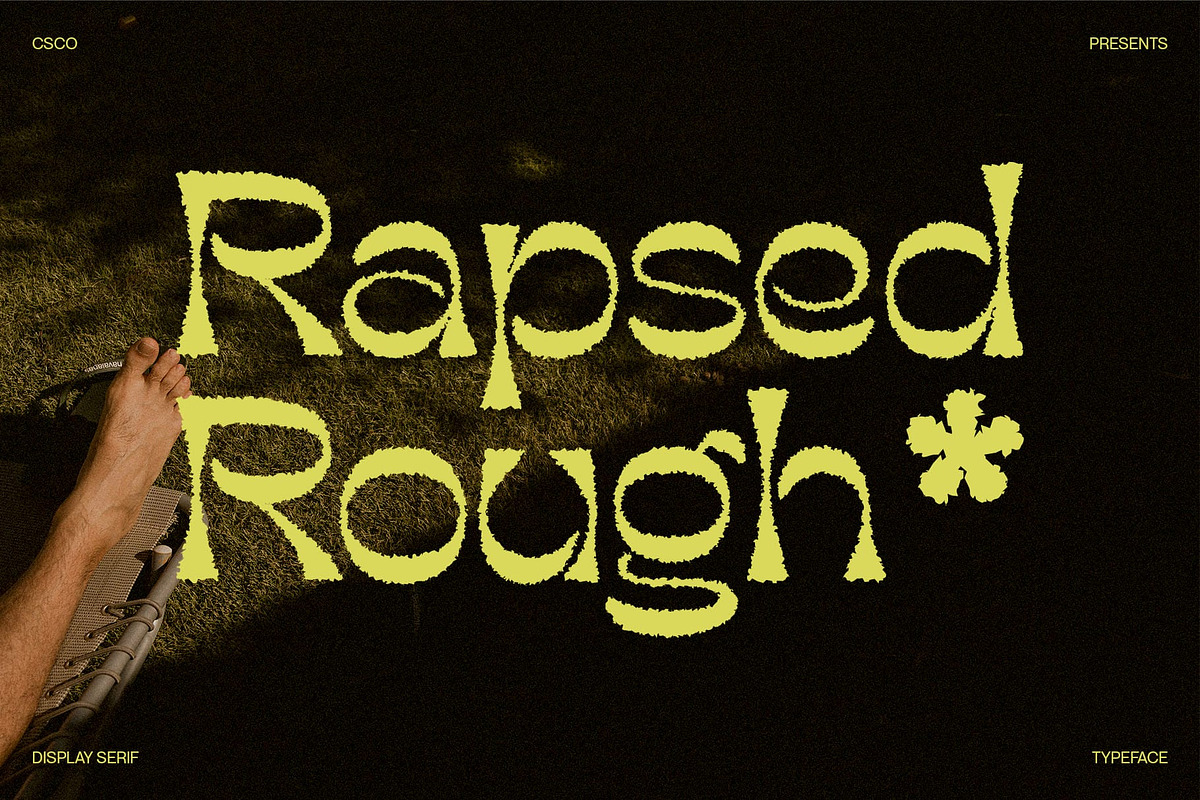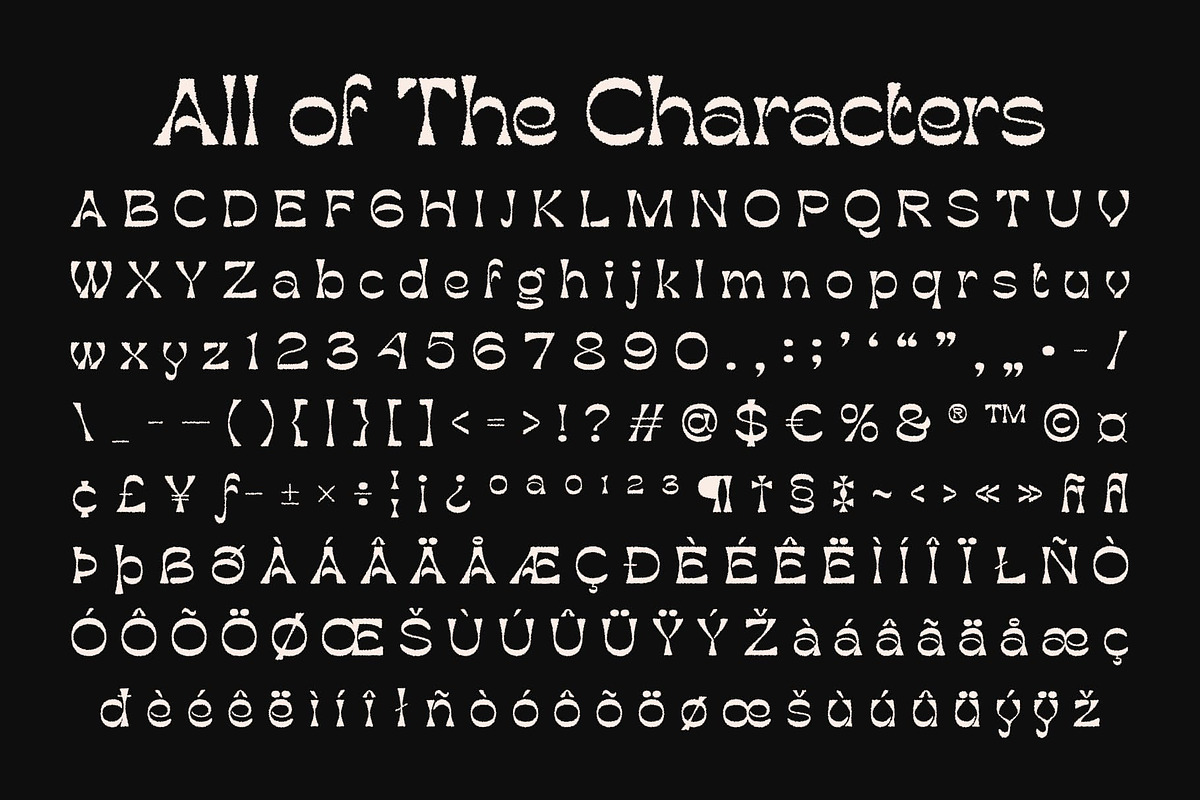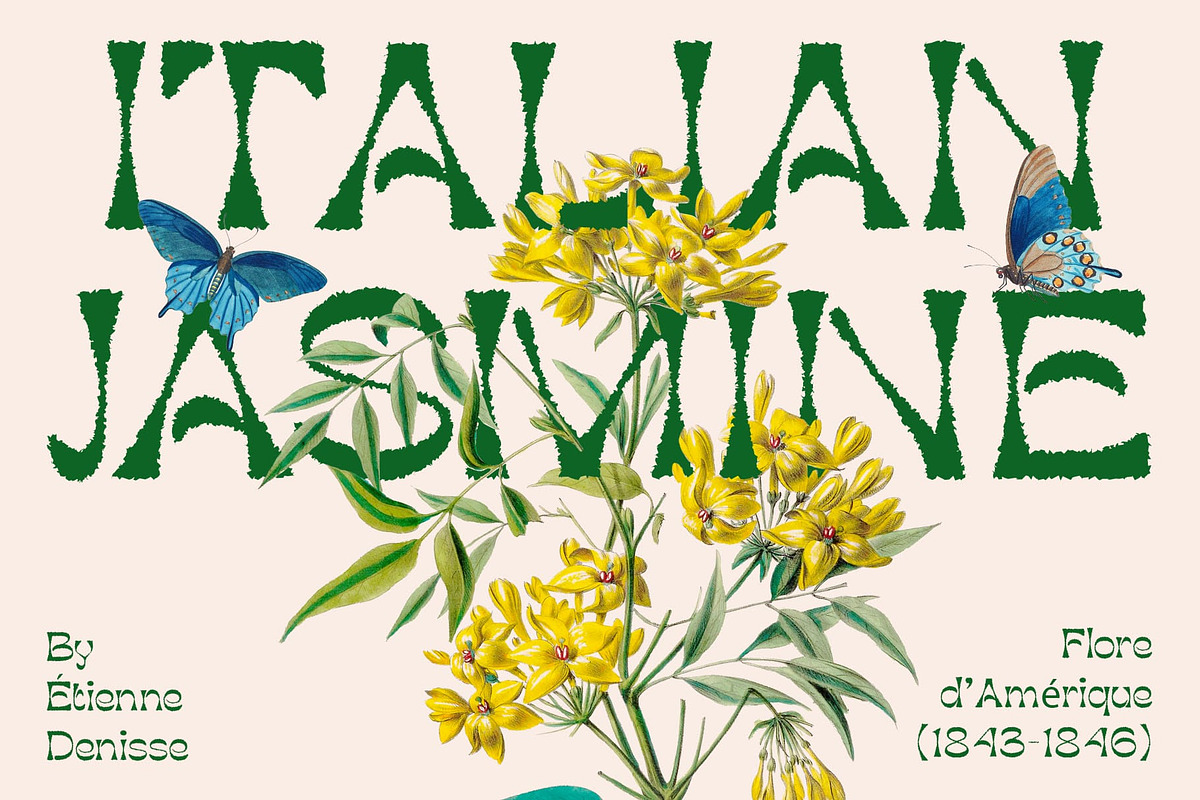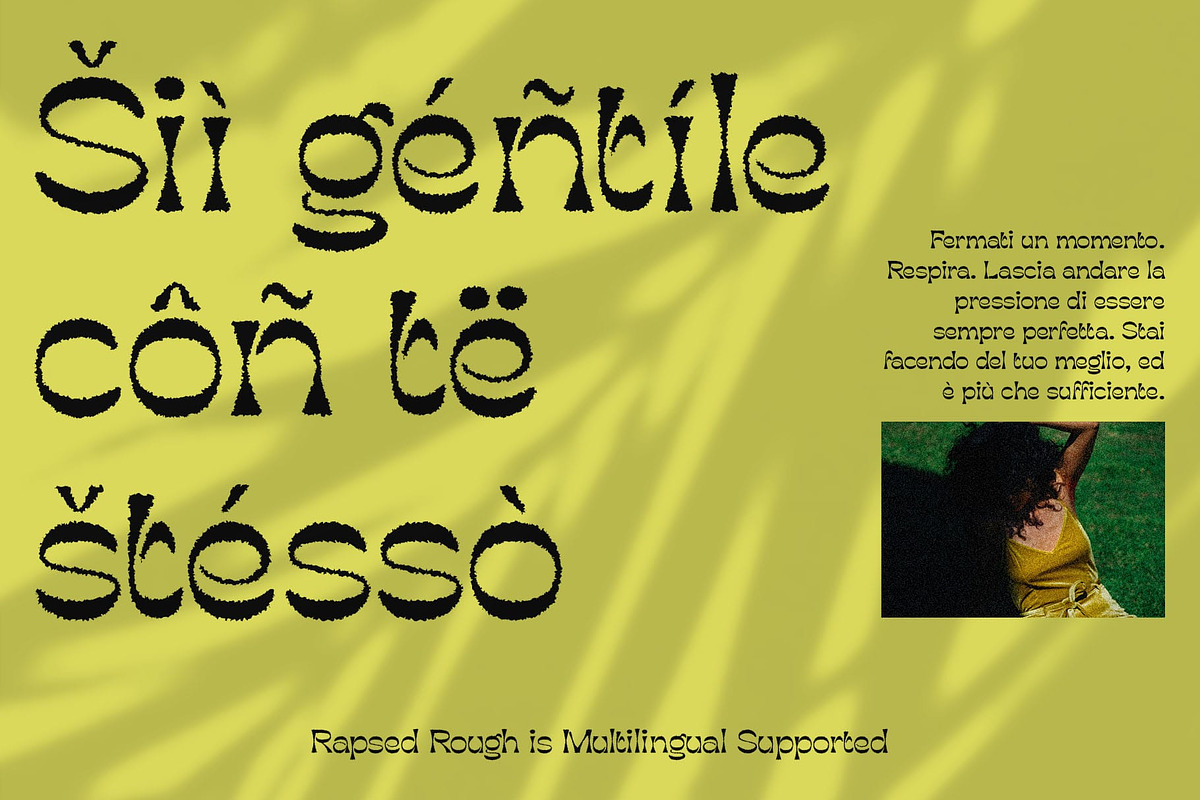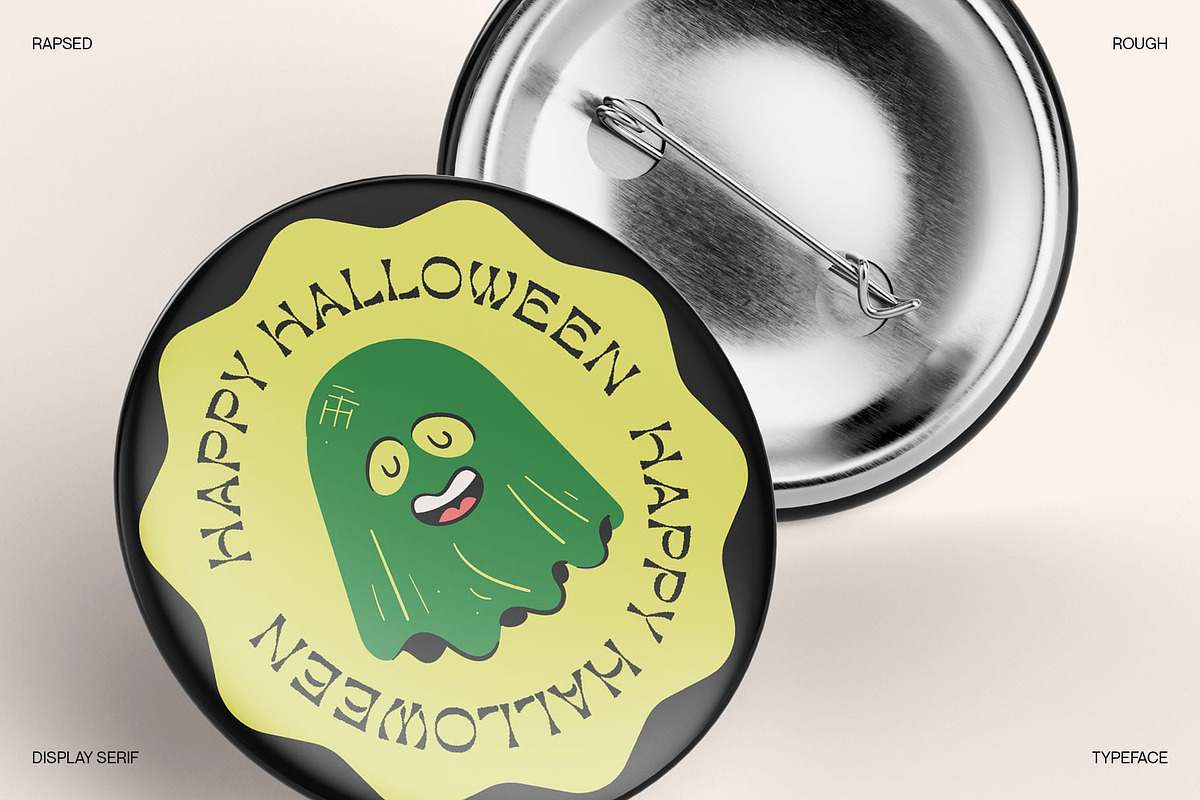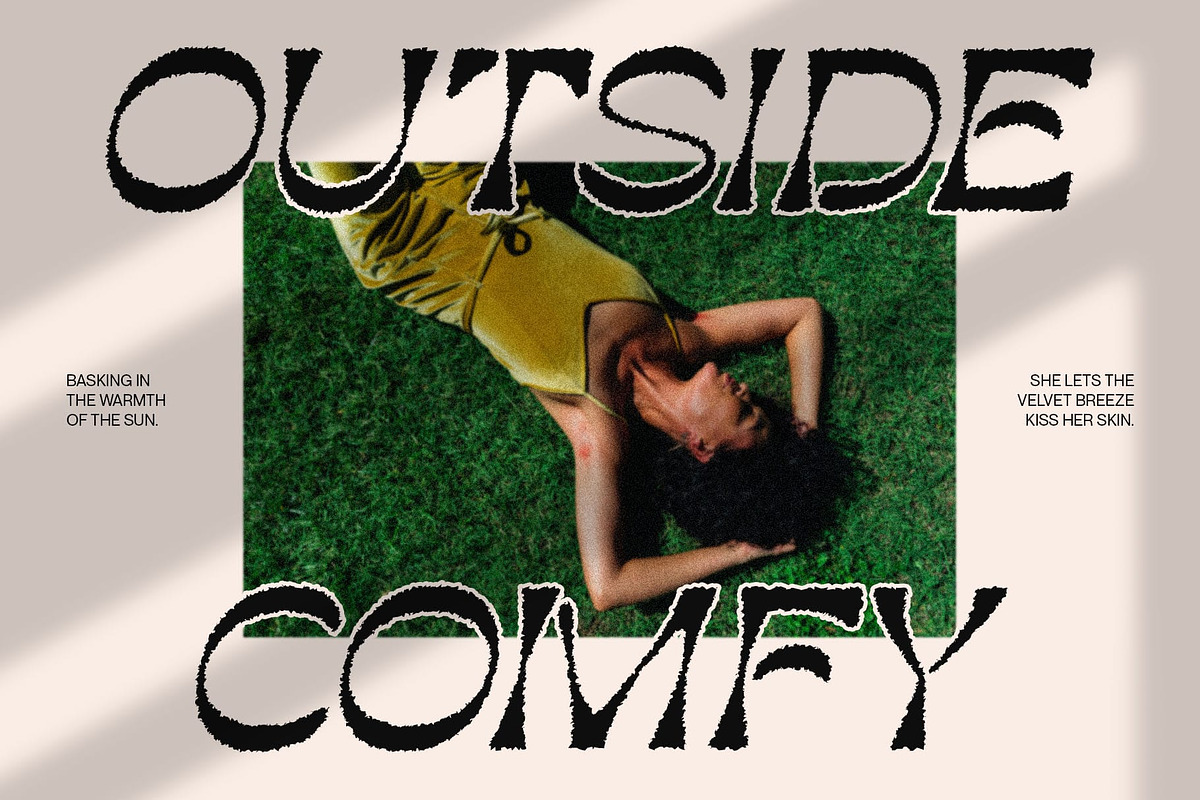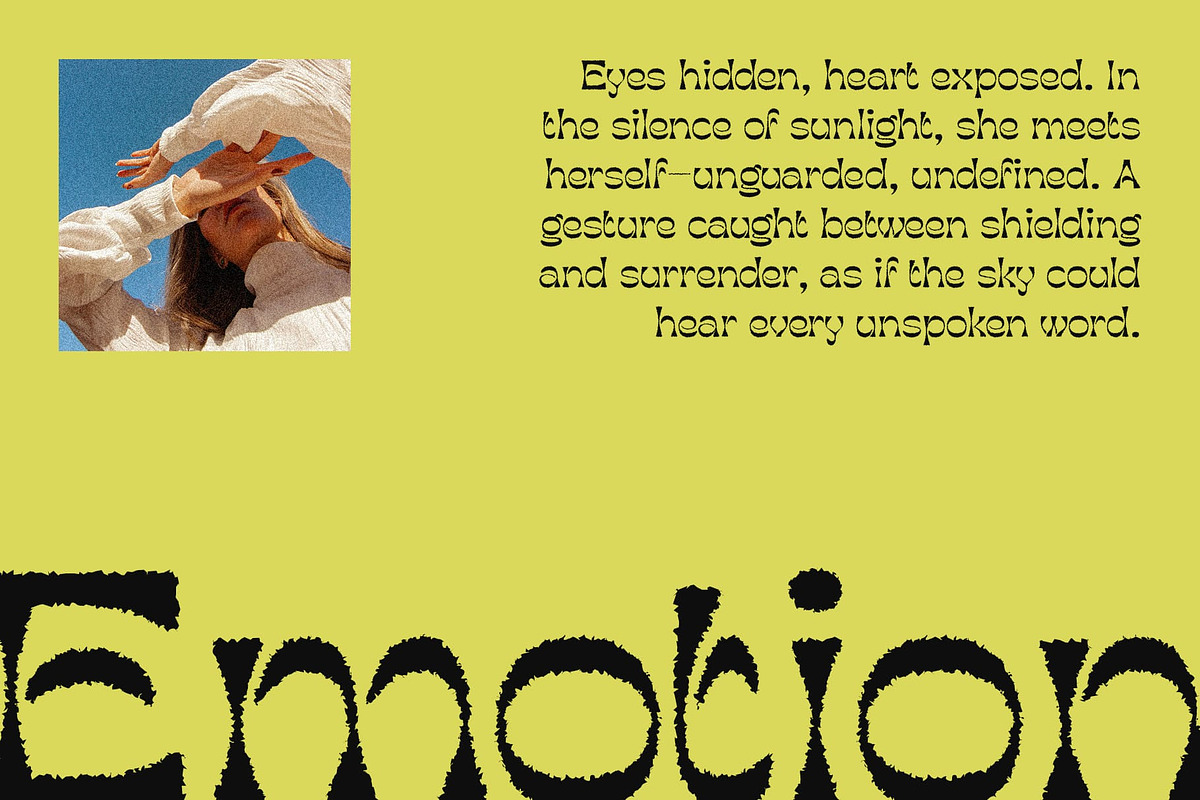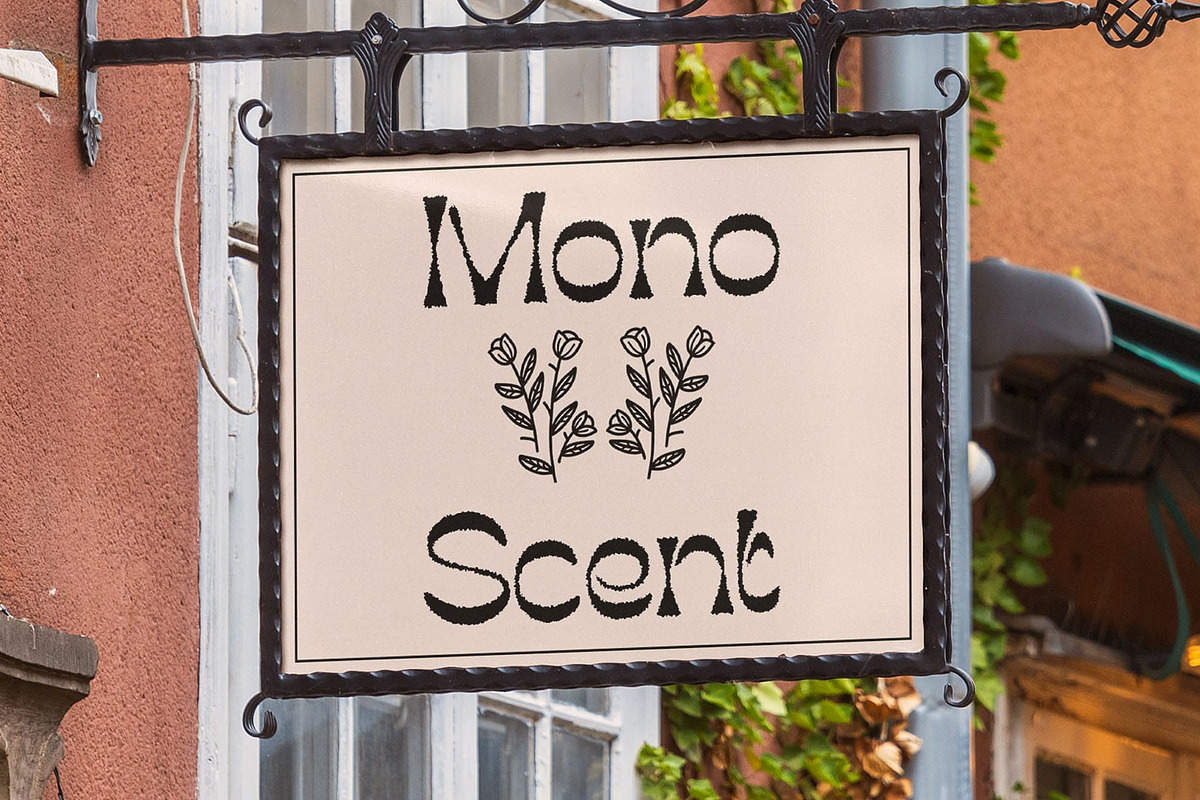
Rapsed Rough
Rapsed Rough Font – Where Retro Heritage Meets Textured Expression
Bold Reverse Contrast for Visual Impact Rapsed Rough is a display font defined by its reverse contrast style—featuring thick horizontal strokes and thin vertical lines. This inversion creates a distinctive visual rhythm that’s instantly eye-catching, giving your typography a bold and unconventional flair rooted in historical design.
19th-Century Inspiration with Classic Retro Vibes Inspired by 19th-century lettering traditions, Rapsed Rough channels a strong retro classic feel. Its ornamental forms and period-evoking proportions add a touch of antique sophistication, ideal for projects that seek to blend nostalgia with bold typographic presence.
Rough Effect for Vintage Texture The font’s weathered, textured rough effect enhances its charm, adding a sense of age and handcrafted character. This finish creates a soulful, organic tone—perfect for bringing warmth and authenticity to your design work. The added rough effect gives the font a weathered, handmade appearance—imparting it with grit, depth, and personality. Each letter looks slightly worn and irregular, adding authenticity and a tactile, human quality that contrasts beautifully with its formal structure.
Perfect for Nostalgic and Character-Rich Designs Whether you’re designing retro music posters, vintage product packaging, or classic branding visuals, Rapsed Rough delivers a visually expressive style that feels both historic and alive. It’s a go-to choice for creatives aiming to evoke boldness, character, and timeless appeal in their projects.